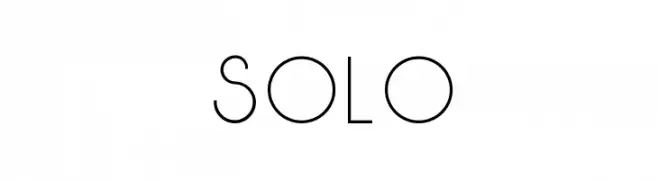
A vintage-modern font with tall, narrow, hand-drawn letterforms.
A bold, brush-style handwritten font with dynamic strokes.
A bold, futuristic font with geometric and angular design.
A tall, narrow font with a modern and sleek design.
A playful, dotted line font with a whimsical, hand-drawn style.
A modern, thin-stroked font with a clean and elegant design.
A modern, rounded font with smooth curves and a clean, minimalist aesthetic.
A modern, rounded font with a clean and approachable design.
A modern, geometric sans-serif font with clean lines and rounded edges.
A modern, geometric font with clean lines and a sleek design.